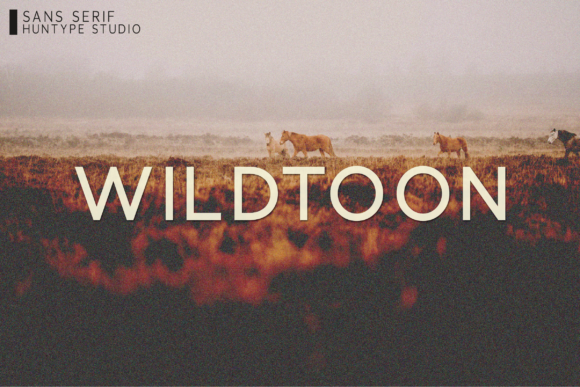
Wildtoon Font: A Typographic Masterpiece of Elegance and Versatility
In a world where words dance across digital screens and paper pages, the choice of font holds immense power, capable of transforming mundane text into emotive expressions. Allow me to introduce you to Wildtoon Font, an exquisite sans serif creation by Huntype that will elevate your designs to new heights.
Wildtoon Font exudes a rare combination of elegance and versatility, making it the perfect font for capturing the essence of love, romance, and heartfelt emotions. Its clean lines and subtle curves create a visual harmony that effortlessly enhances the beauty of your words.
Picture this: A love letter penned with Wildtoon Font, its characters flowing together like a gentle caress, conveying the depth of your affection with every stroke. Or perhaps, a heartfelt poem displayed using Wildtoon Font, its graceful curves adding a touch of elegance to the timeless expressions of love.
With Wildtoon Font, you possess the power to transform ordinary text into an extraordinary visual experience. Its versatility extends beyond love-themed designs, effortlessly adapting to branding, logos, web headings, and�らゆるデジタル�ャ�ル. The smooth and clean lines of Wildtoon Font ensure that your message remains legible and impactful, even at small sizes.
So, embrace the captivating allure of Wildtoon Font and let your creativity soar. Let its timeless beauty enhance your designs, allowing your words to shine with a touch of elegance and versatility. Whether it's a love letter, a heartfelt poem, or a powerful branding statement, Wildtoon Font will elevate your work to new heights of visual artistry. Choose Wildtoon Font today, and unlock the limitless possibilities of typographic excellence.